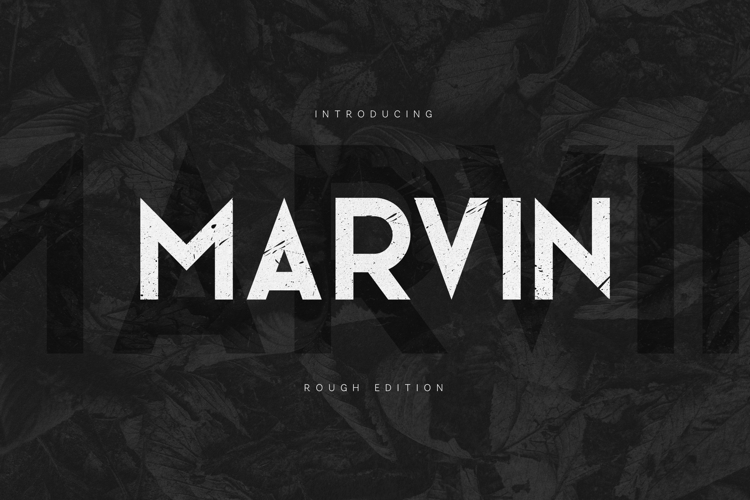
Marvin Rough Industrial Display Font
Marvin is a bold rough display font designed with strong geometric construction and a textured distressed surface. The typeface combines clean modern sans-serif structure with a worn industrial finish, creating a powerful visual style that feels raw, contemporary, and expressive.
The letterforms feature solid proportions, balanced spacing, and rough texture details that give the typography a gritty handcrafted appearance. This combination of modern structure and distressed character allows the font to feel both structured and energetic at the same time.
Marvin was created as a display typeface, built to perform strongly in large typographic compositions where visual impact is essential. The bold shapes and textured finish help typography stand out while maintaining clear readability and strong rhythm across headlines and graphic layouts.
The rough texture adds personality and depth to the letters, making the typeface particularly suitable for projects that need a strong visual voice and a slightly rugged aesthetic.
Marvin works especially well in design projects such as:
• poster typography
• bold headline layouts
• branding systems
• modern graphic compositions
• packaging graphics
• music artwork layouts
• street-inspired visuals
• contemporary display typography
The font includes uppercase letters, lowercase letters, numbers, punctuation, symbols, and extended multilingual characters, allowing it to work across a wide range of international design environments.
With its bold construction and rough distressed texture, Marvin offers a versatile display typeface that brings strong visual character and expressive typography to modern graphic design.